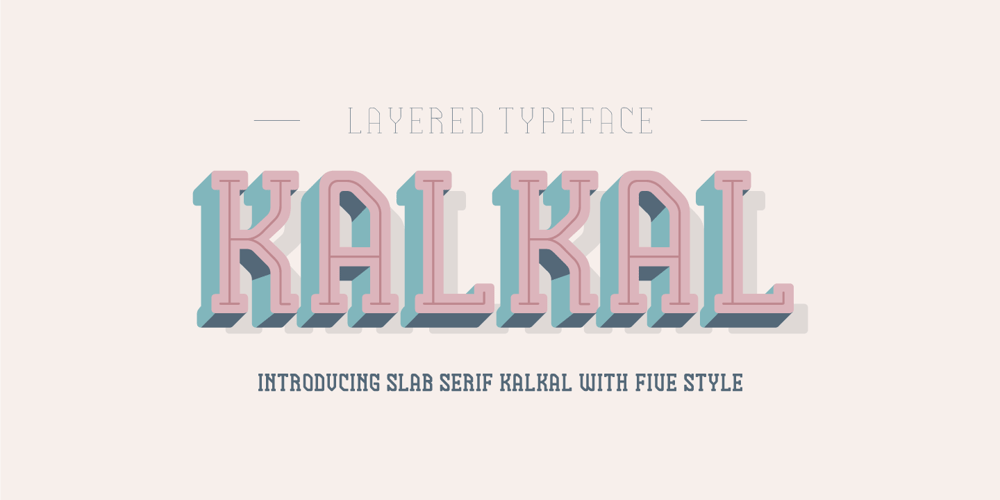
Kalkal Font Family was designed by Gunjan Panchal and published by Gunjan. Kalkal contains 5 styles and family package options. Kalkal is slab serif typeface with five style, inspired by sign-board. It looks like many typeface with three dimensional. The main layer is regular and in-liner bring little spark in the Typeface. Two shadow layers gives an eye catchy impression and opacity layer is charm of the family.This five layered typeface can be used alone or combined, which makes it a versatile. This type works both for vintage and modern designs.Now let’s see how it works: In-liner layer Regular layer Shadow one layer Shadow two layer Opacity shadow layer kalkal with its five layers gives you flexibility to design.